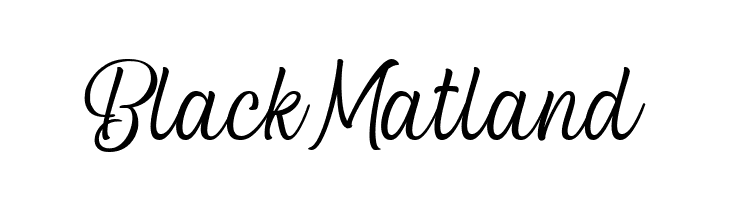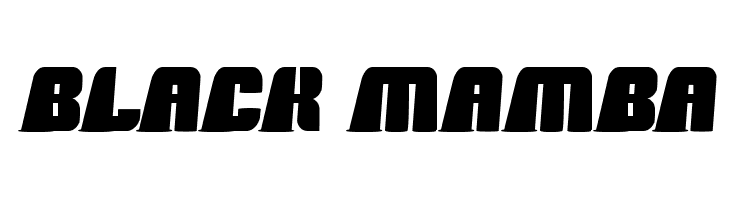
A bold, modern font with thick, slanted characters and tight spacing.
A bold, dynamic font with slanted characters and strong presence.
A bold, dynamic script font with a hand-painted, expressive style.
Bold, playful handwritten font.
A flowing, cursive font with elegant, connected strokes.
A bold, brush-style font with dynamic and expressive strokes.
A bold, jagged font with a heavy metal aesthetic and high contrast.
A gothic, black metal-inspired font with sharp, jagged characters.